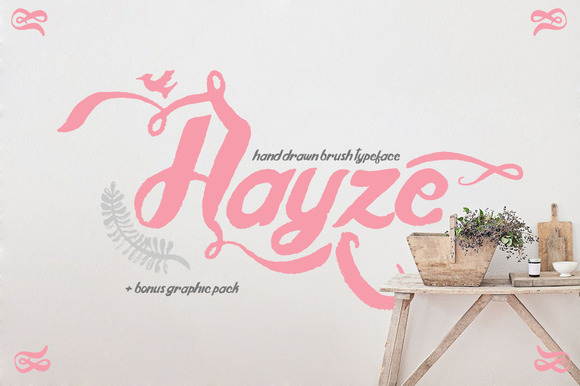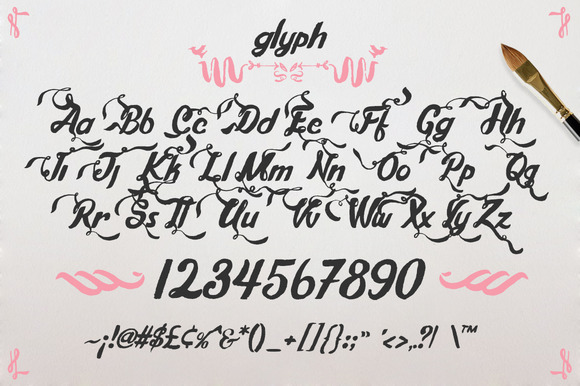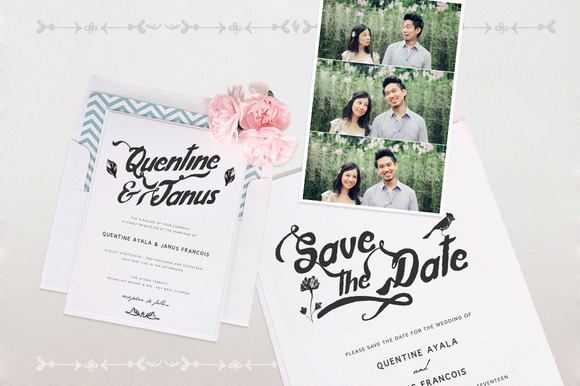
Hayze – Hand Drawn Bush Typeface
Hayze is a hand drawn typeface using ink and brush. Brought to complete your sweet and romantic design. The typeface is great for invitations, quotes, headings, t-shirt, labels, posters, etc.